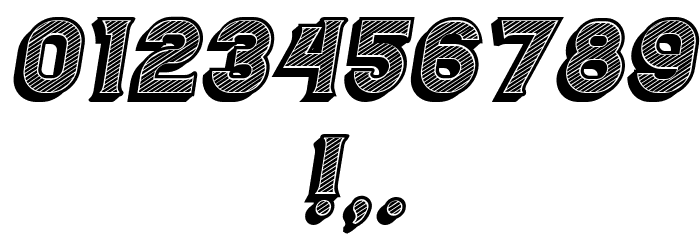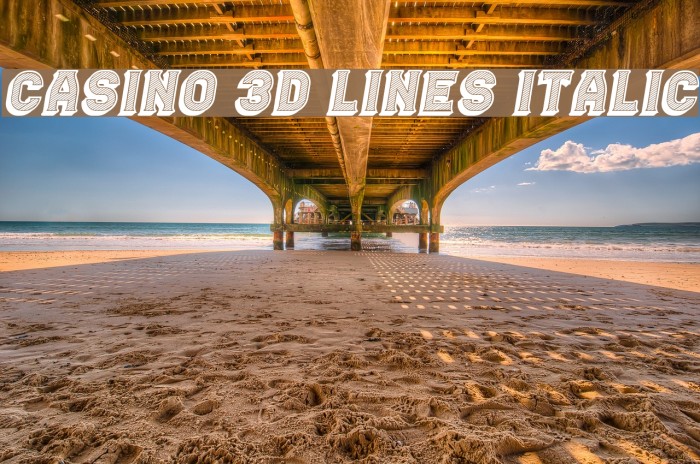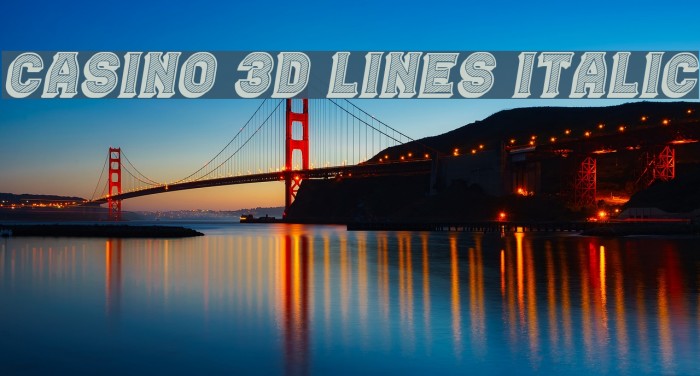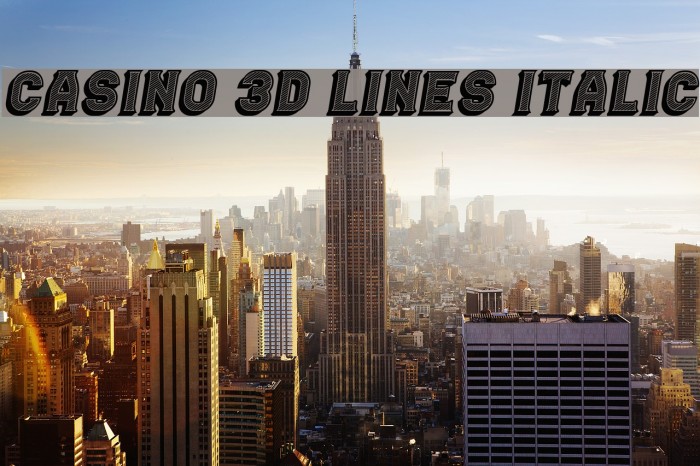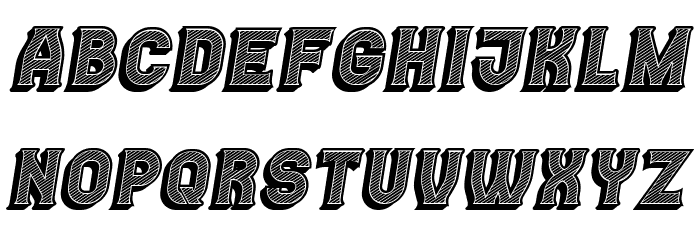
Casino 3D Lines Italic Font
This font features a bold, three-dimensional style with italicized characters that create a sense of depth and movement. The letters are outlined with a thick black border and filled with diagonal lines, giving them a textured appearance. The design is reminiscent of vintage casino signage, with a playful yet sophisticated aesthetic. The uppercase letters are prominent and commanding, while the numbers and special characters maintain the same bold and dynamic style. This font is ideal for projects that require a striking and memorable visual impact.
A bold, 3D italic font with textured lines and a vintage casino vibe.
• Proposed Projects: Ideal for use in posters, signage, branding, and any project requiring a bold, eye-catching typeface.
• Category: Decorative/Display
• Bold: Yes
• Italic: Yes
• Weight: Bold
• Width: Normal
• Character Spacing: Normal
• Contrast: High
• Overall Style: Vintage
• Use Case: Headlines, Logos, Posters